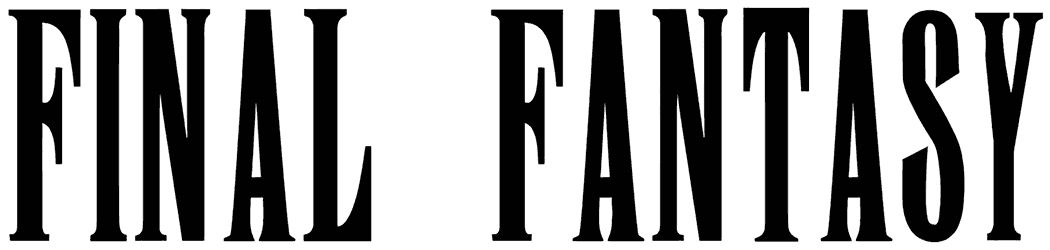
Final Fantasy Font
Step into a world of magic and adventure with the Final Fantasy font — a must-have for fans of the legendary game series! Perfect for themed designs, posters, logos, or fan art, this elegant and nostalgic typeface captures the iconic essence of Final Fantasy.